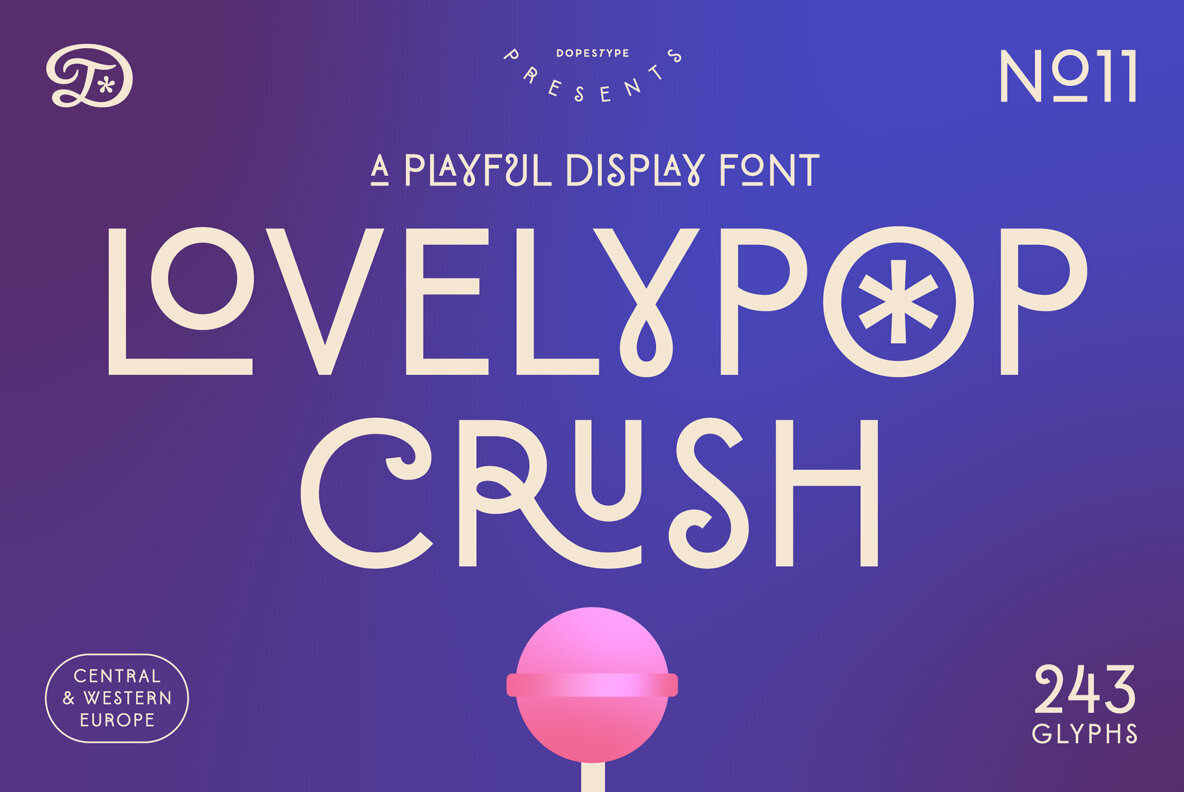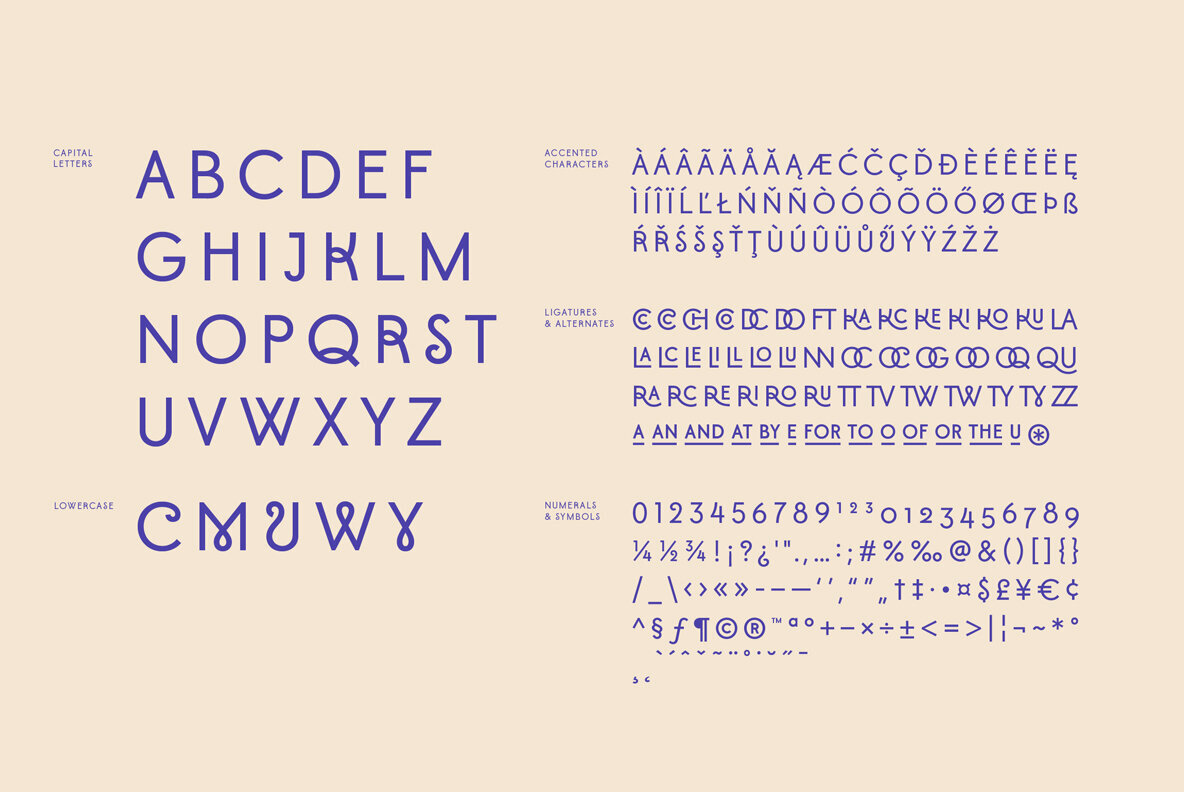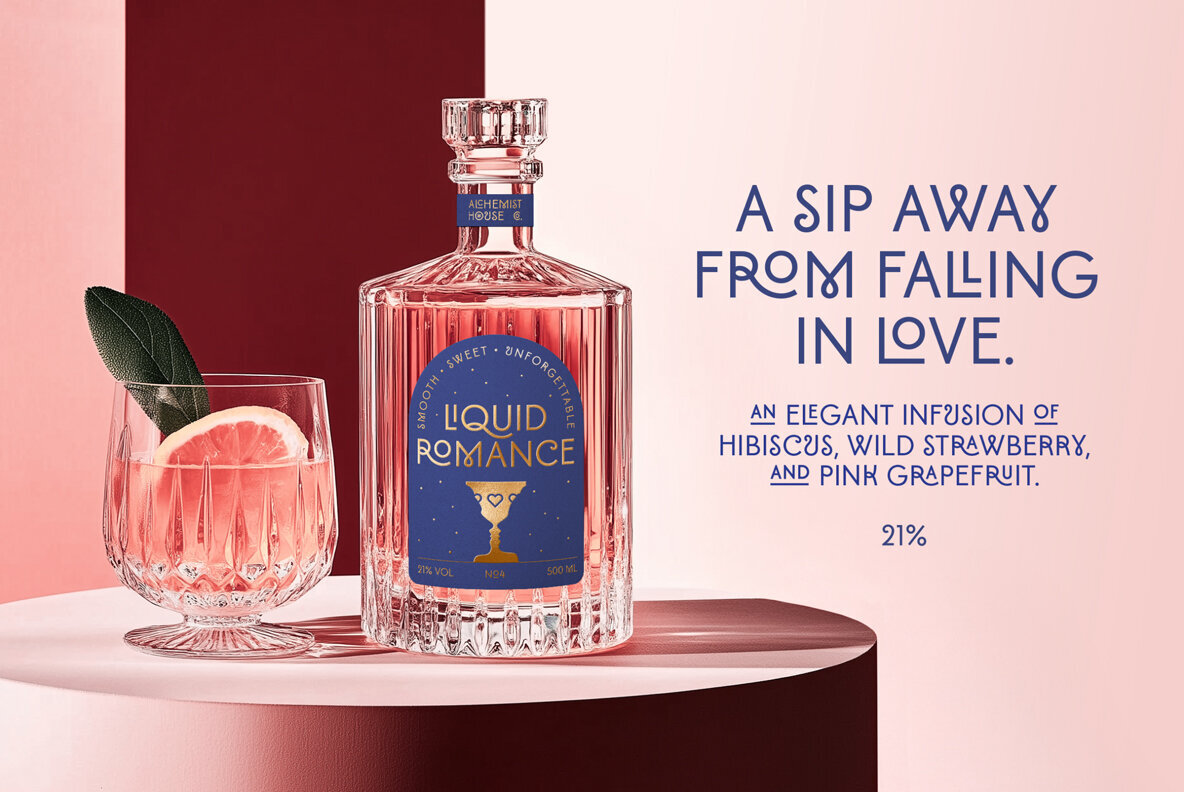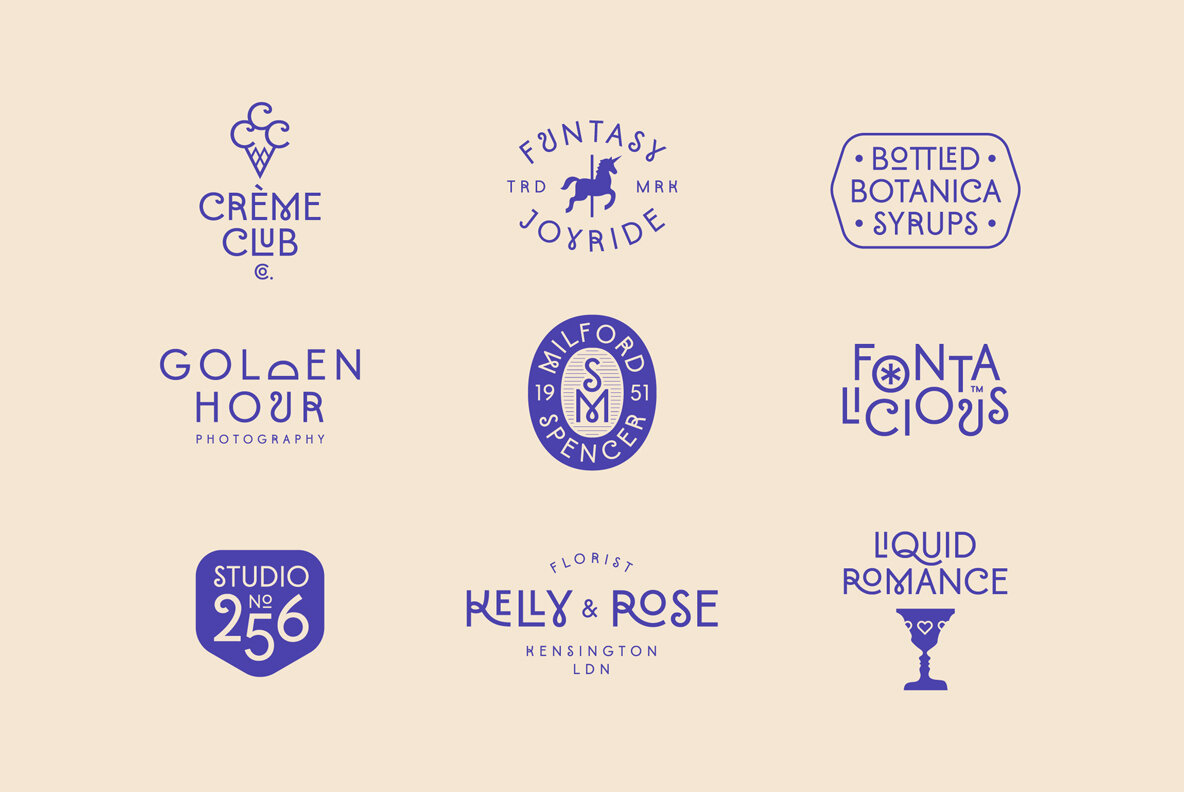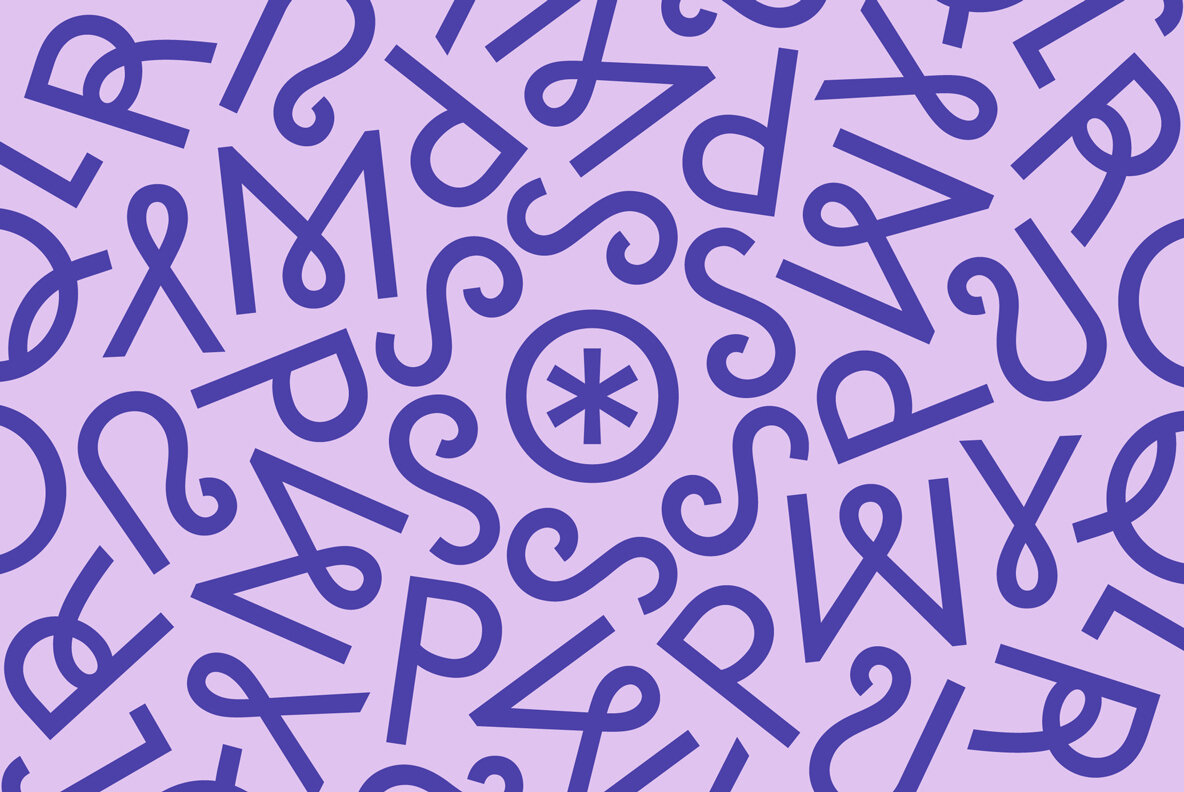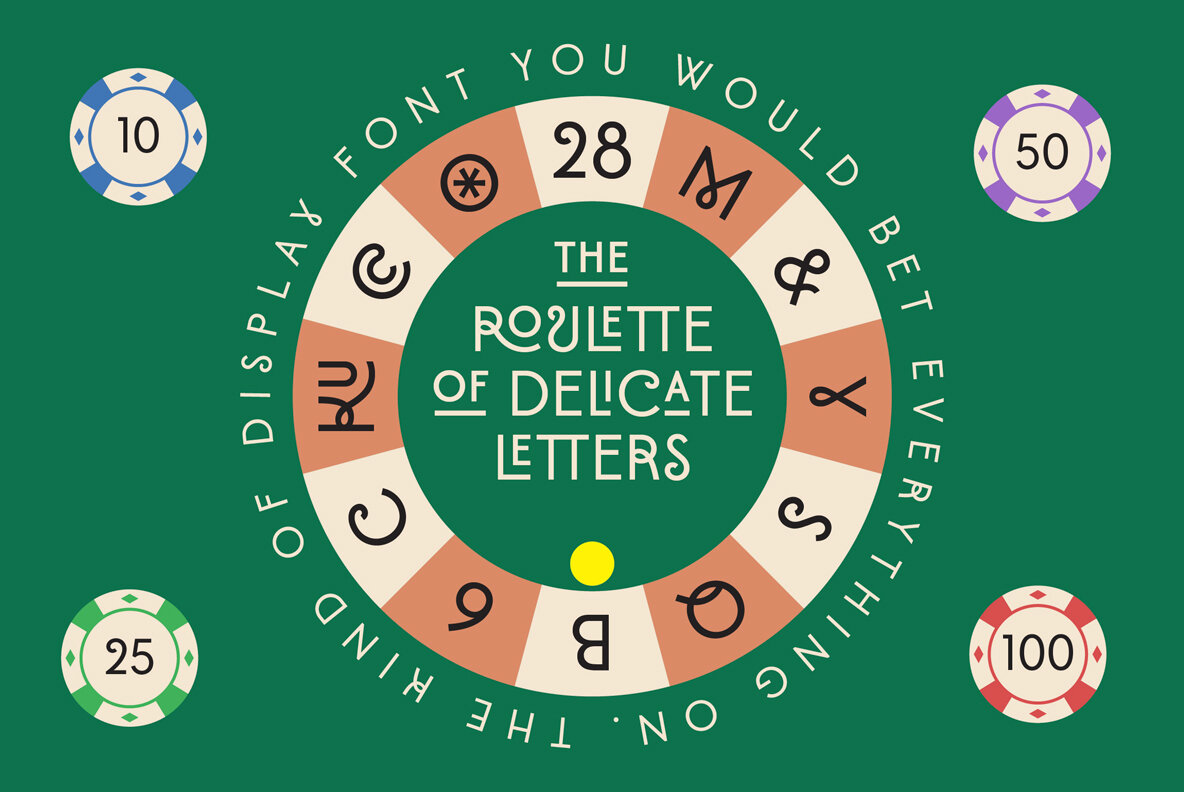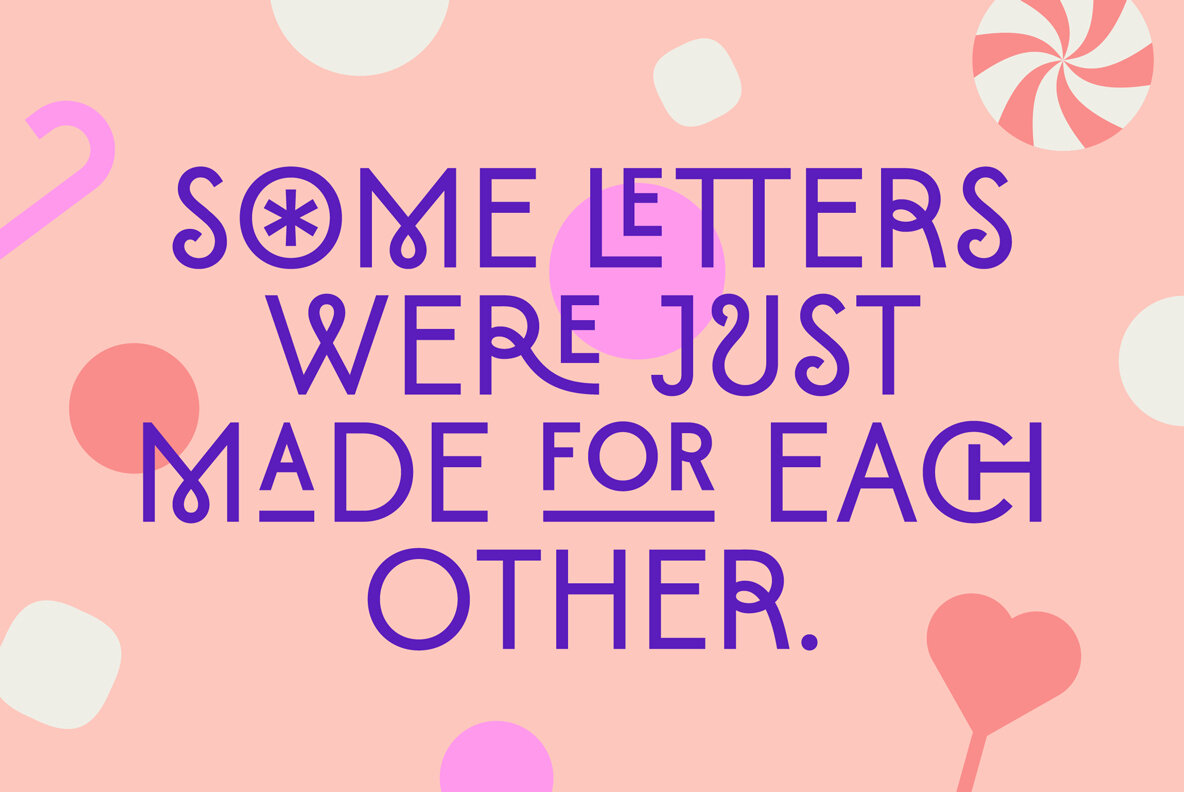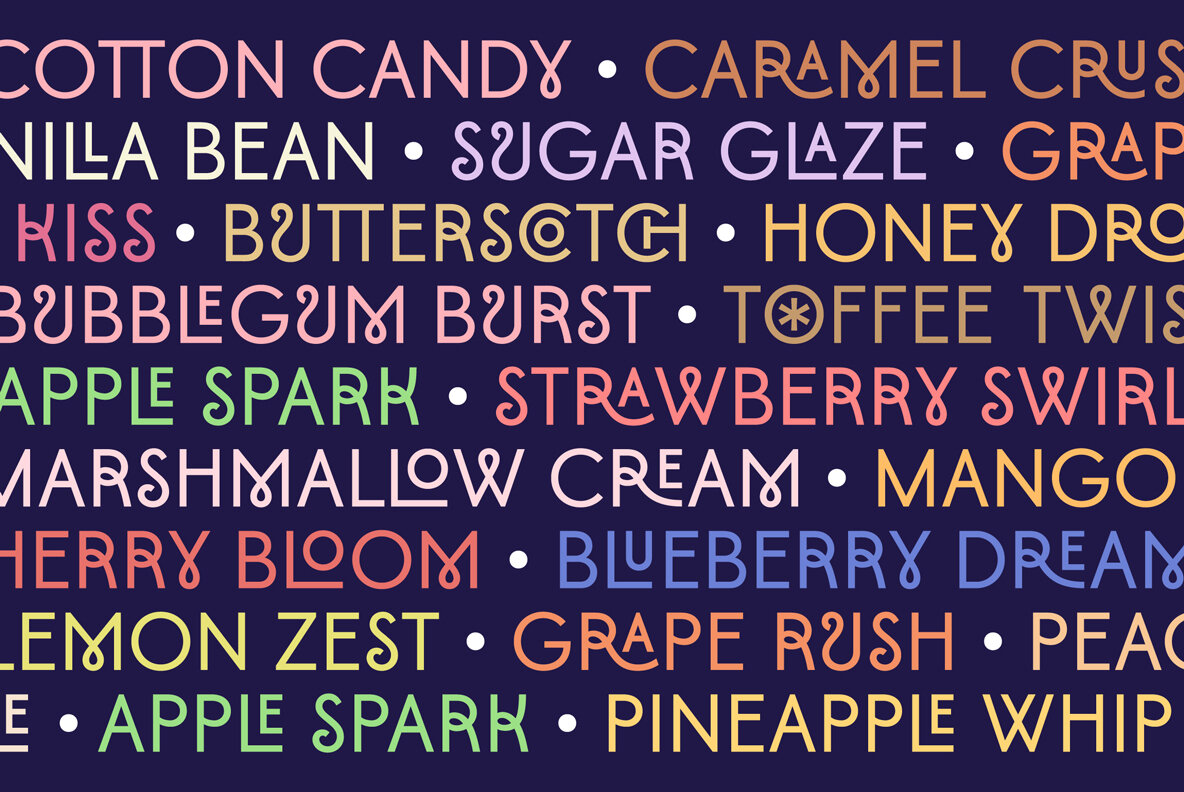
Lovelypop Crush Font
Lovelypop Crush is an all-caps sans display font imbued with playful charm and smooth, inviting shapes. It is a font that speaks of personality and joy, perfect for infusing warmth into logos, headlines, magazines, and branding projects. Its bountiful ligatures and special characters ensure that every design radiates sweetness and style, making your words pop.Lovelypop Crush: A Playful All-Caps Sans Display Font